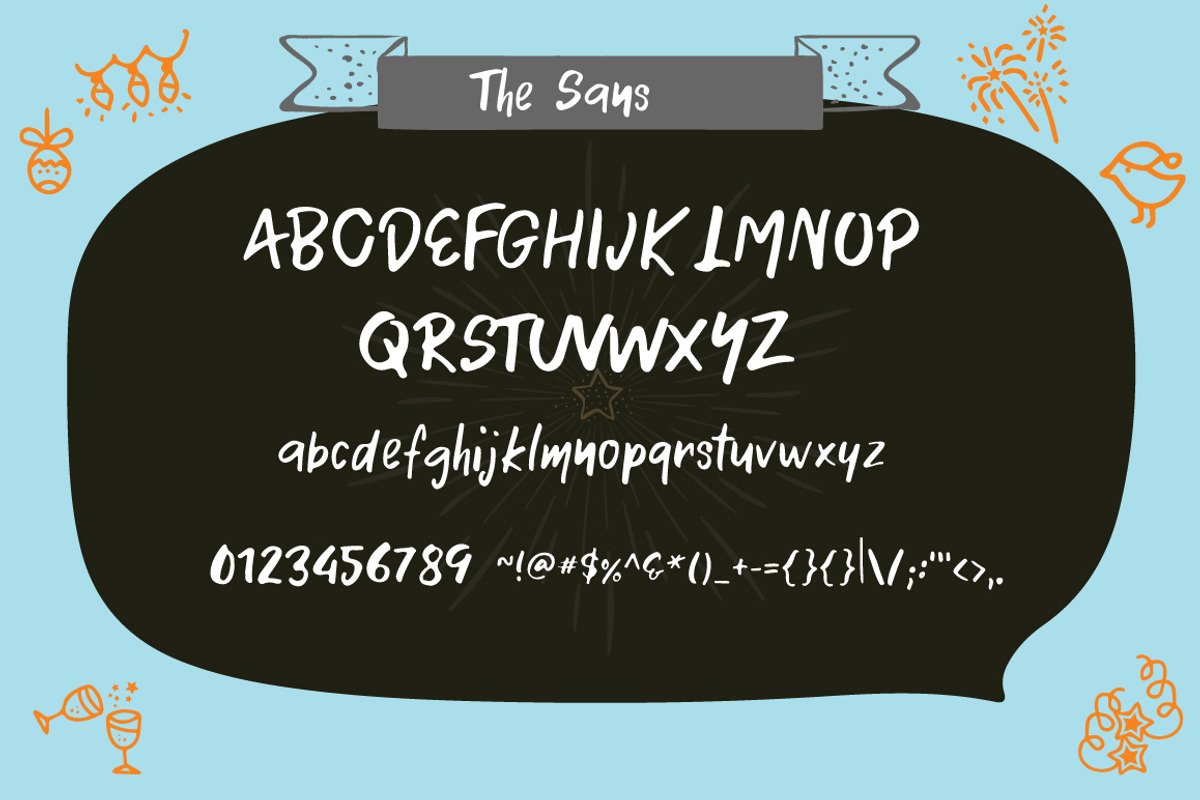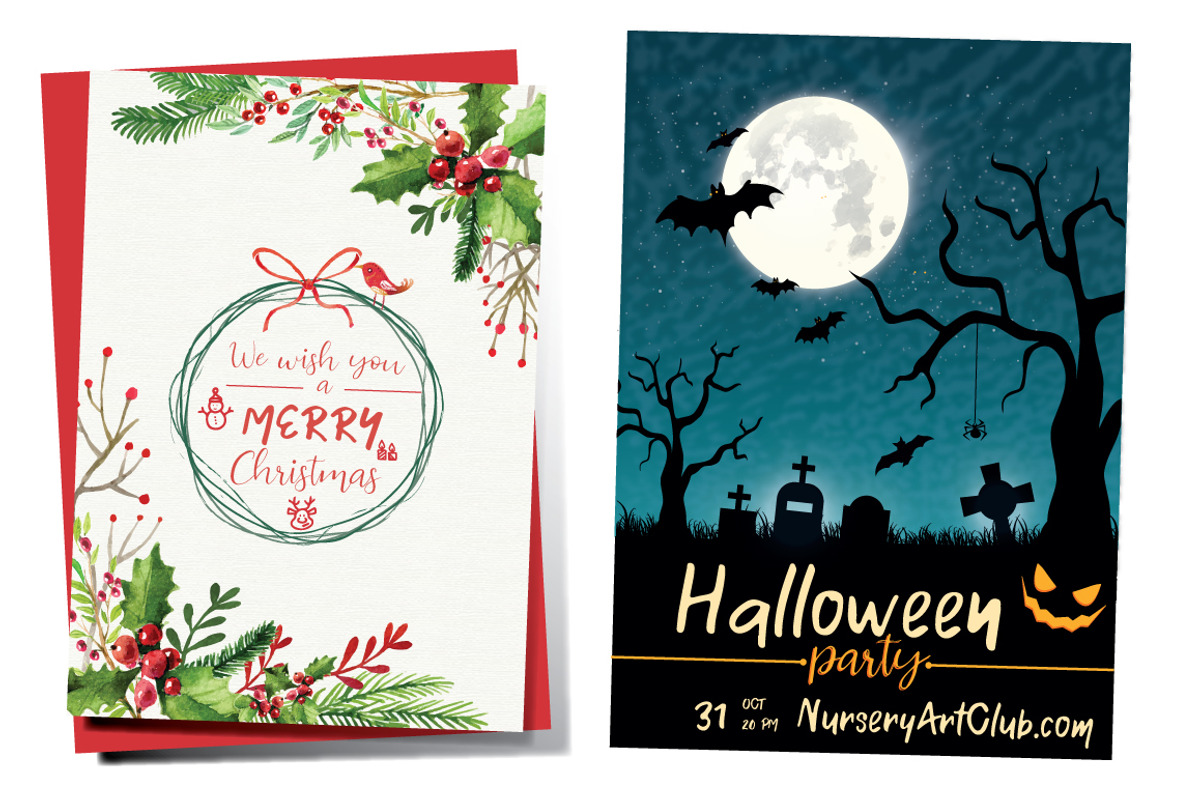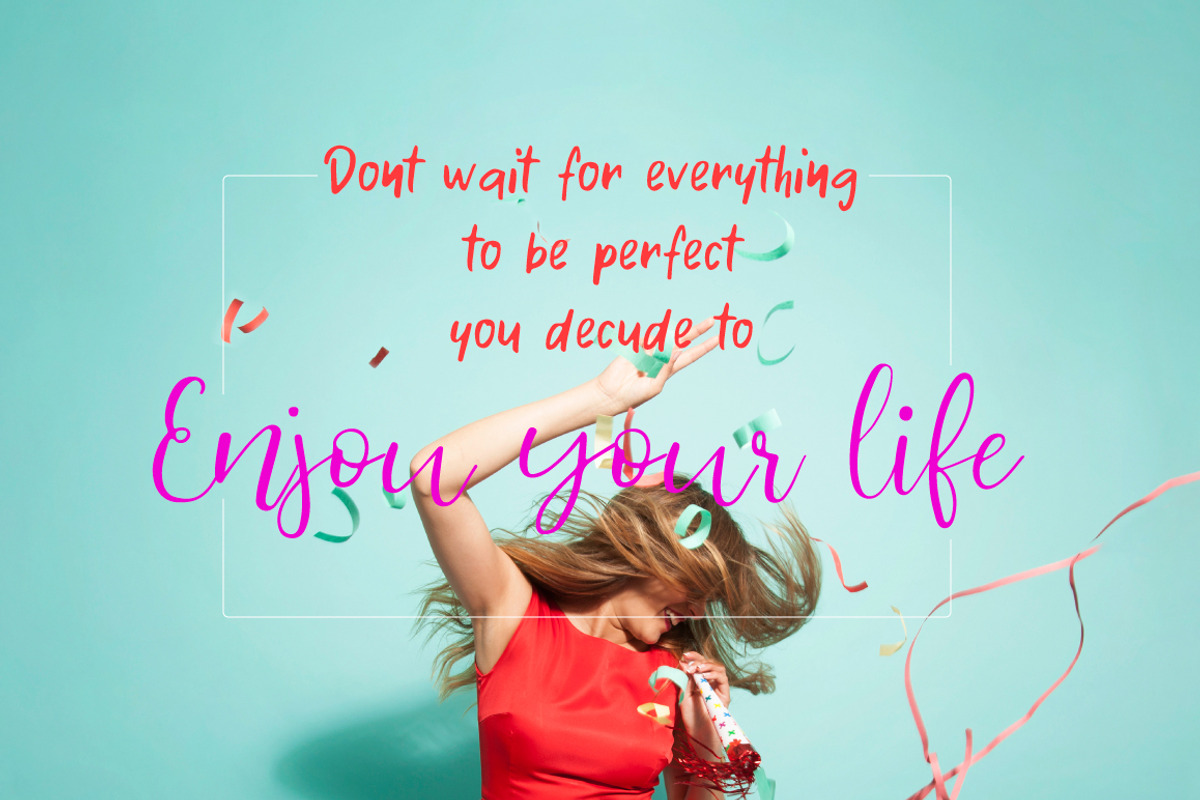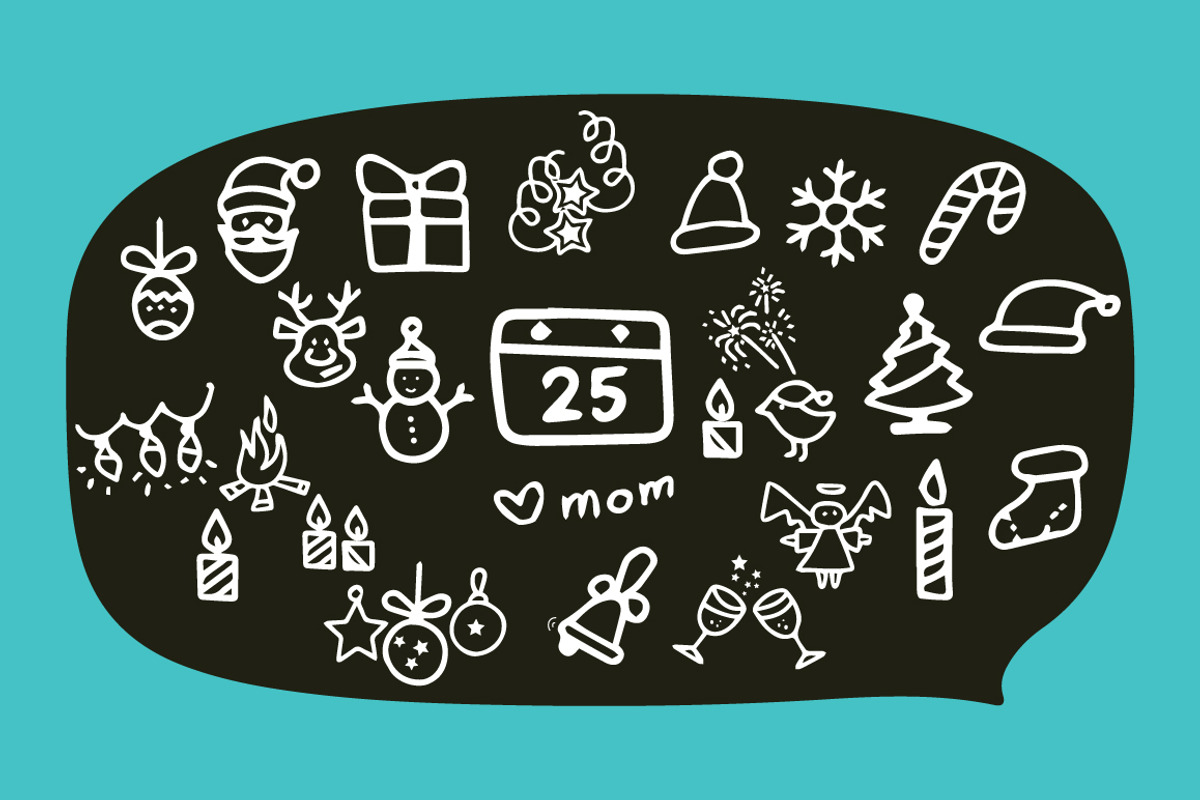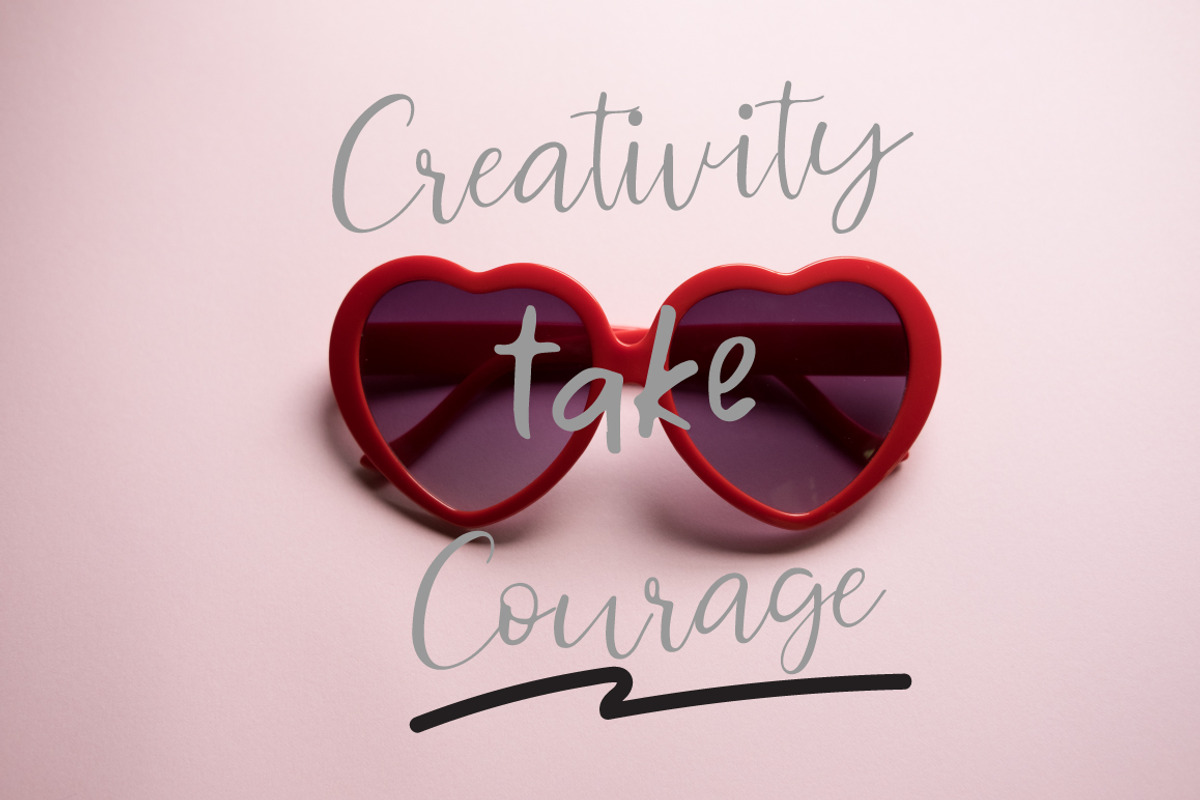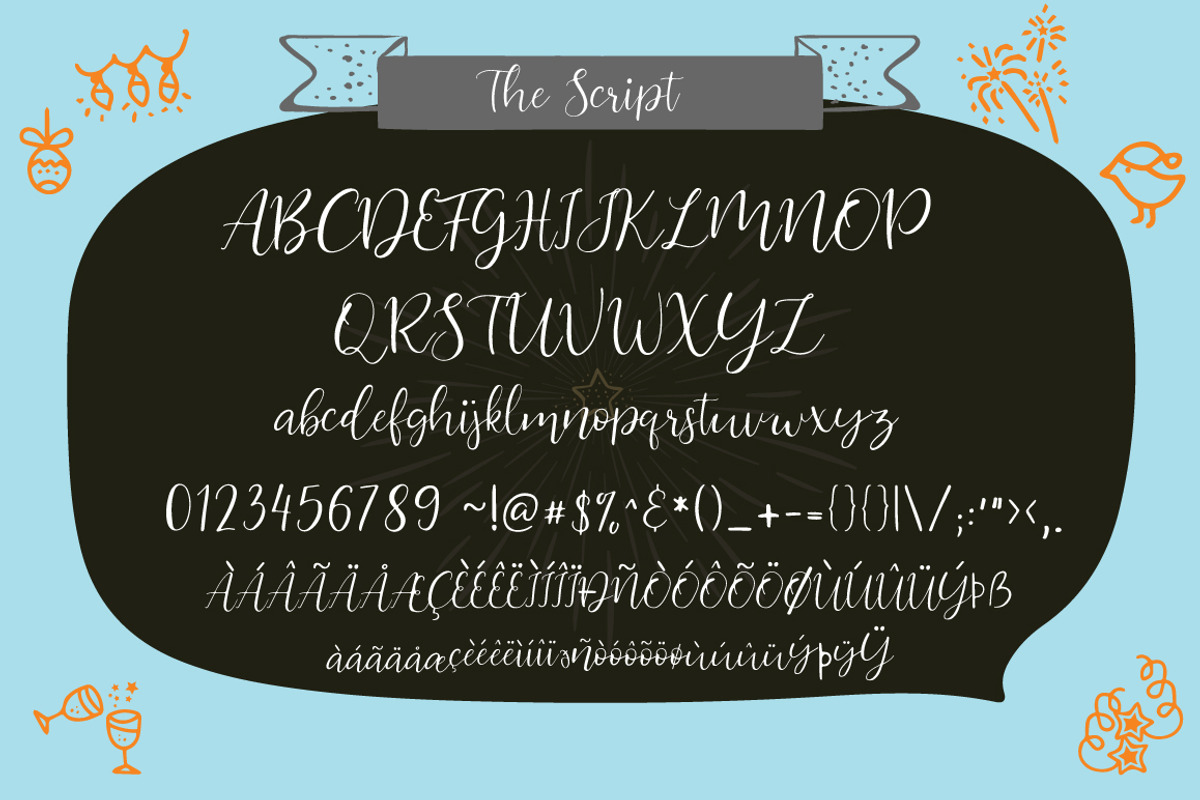
Silent night | Font Duo
it's handwritten script font.
This font a perfect for wedding invitation or your blog. Also with their help, you can create a logo or beautiful frame for your home. Or just use for your small business, book covers, stationery and more. and it can make for Christmas and New Year.
Include languages in script font: English France Italian Spanish German Dutch Finnish Danish
- Silent Night Regular
- Silent Night Sans
- Silient Night Doodle